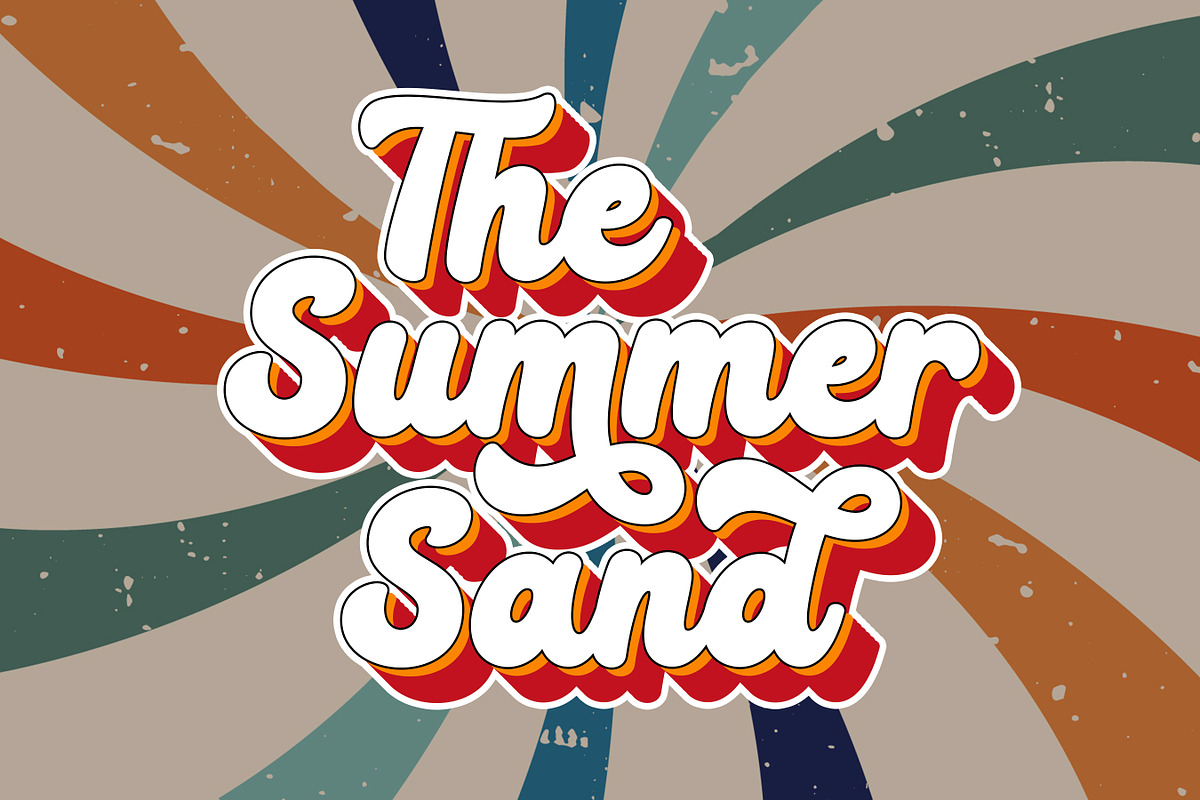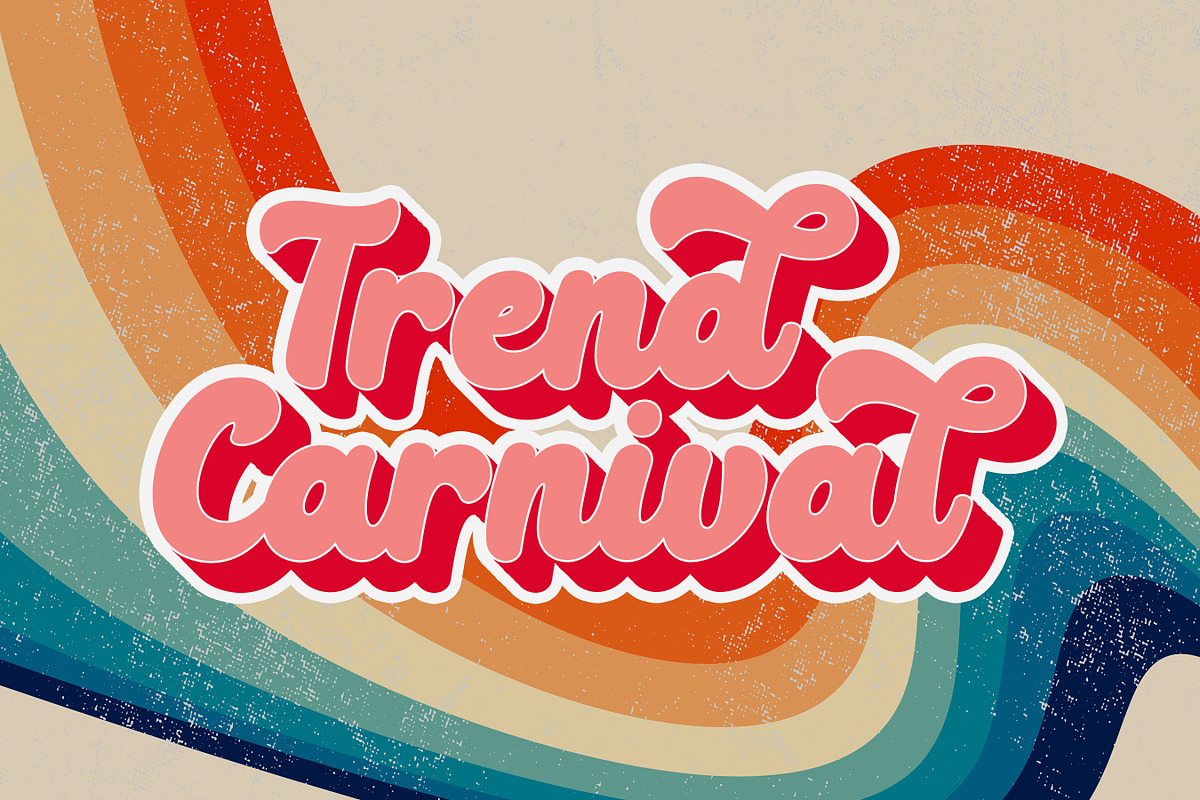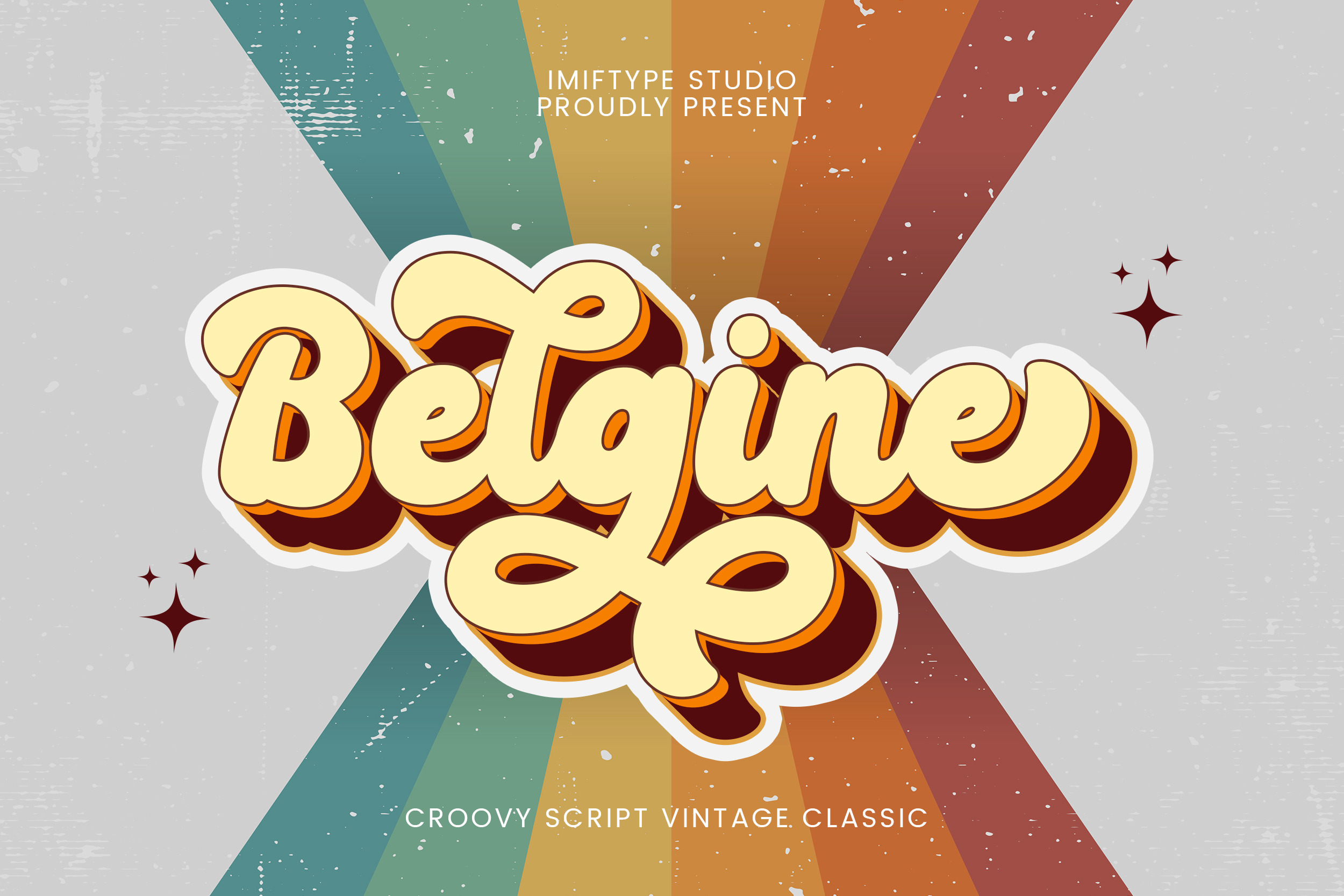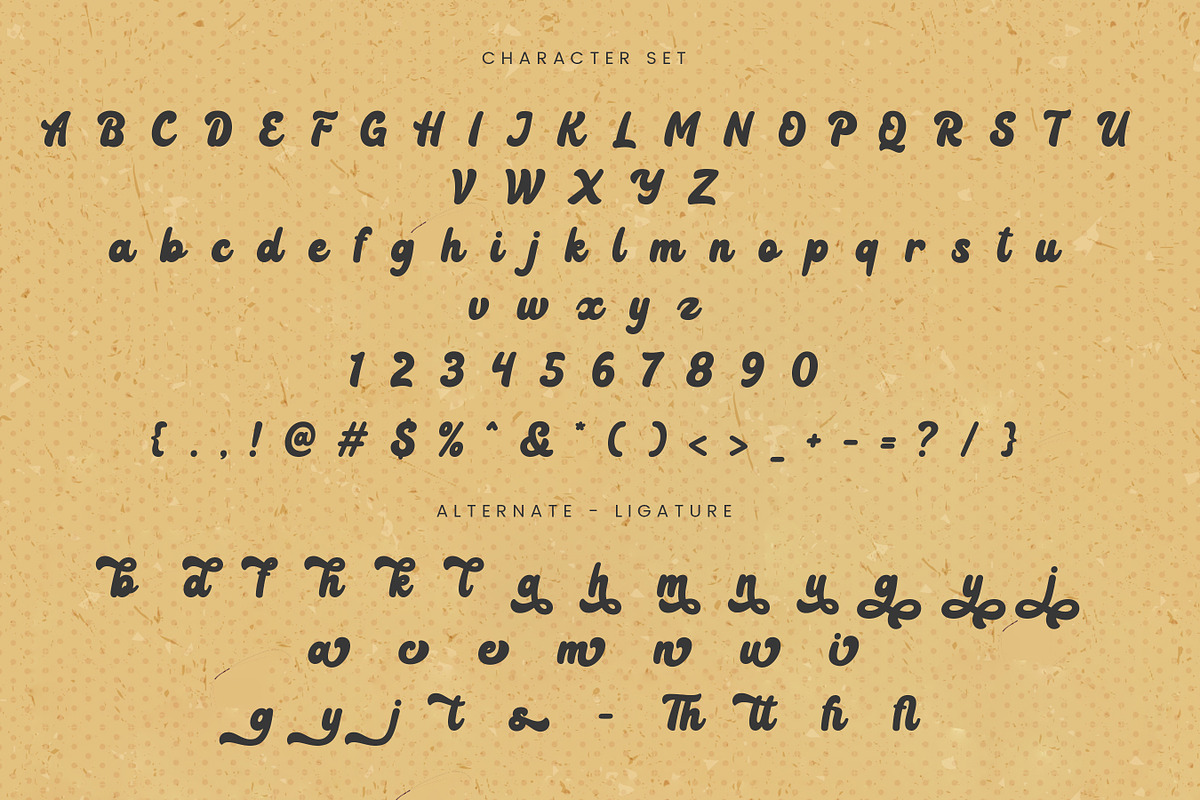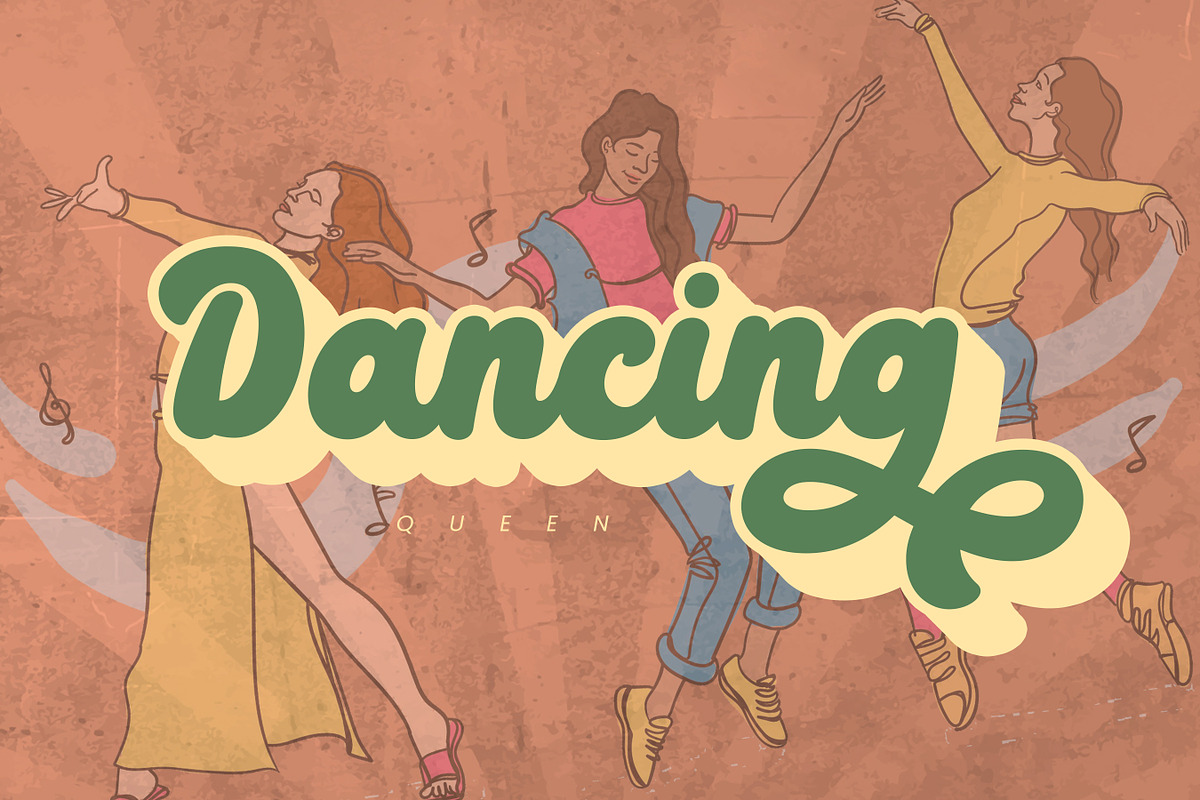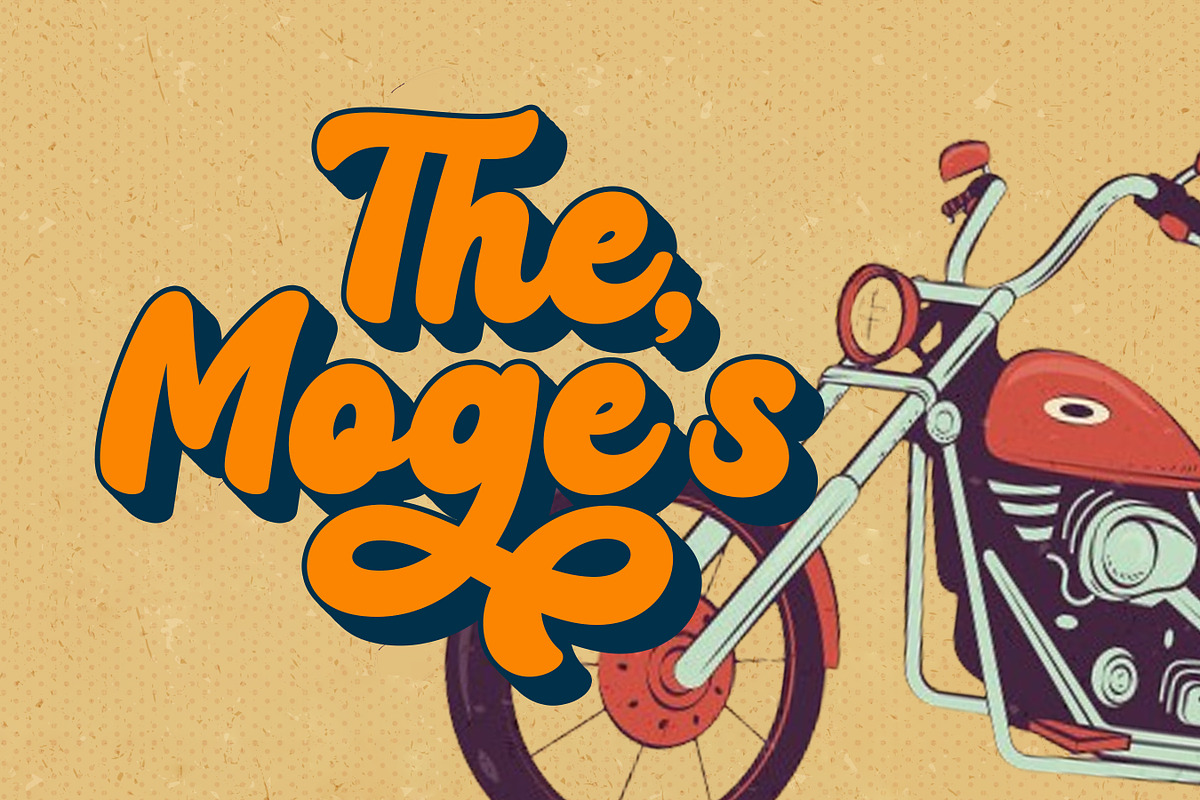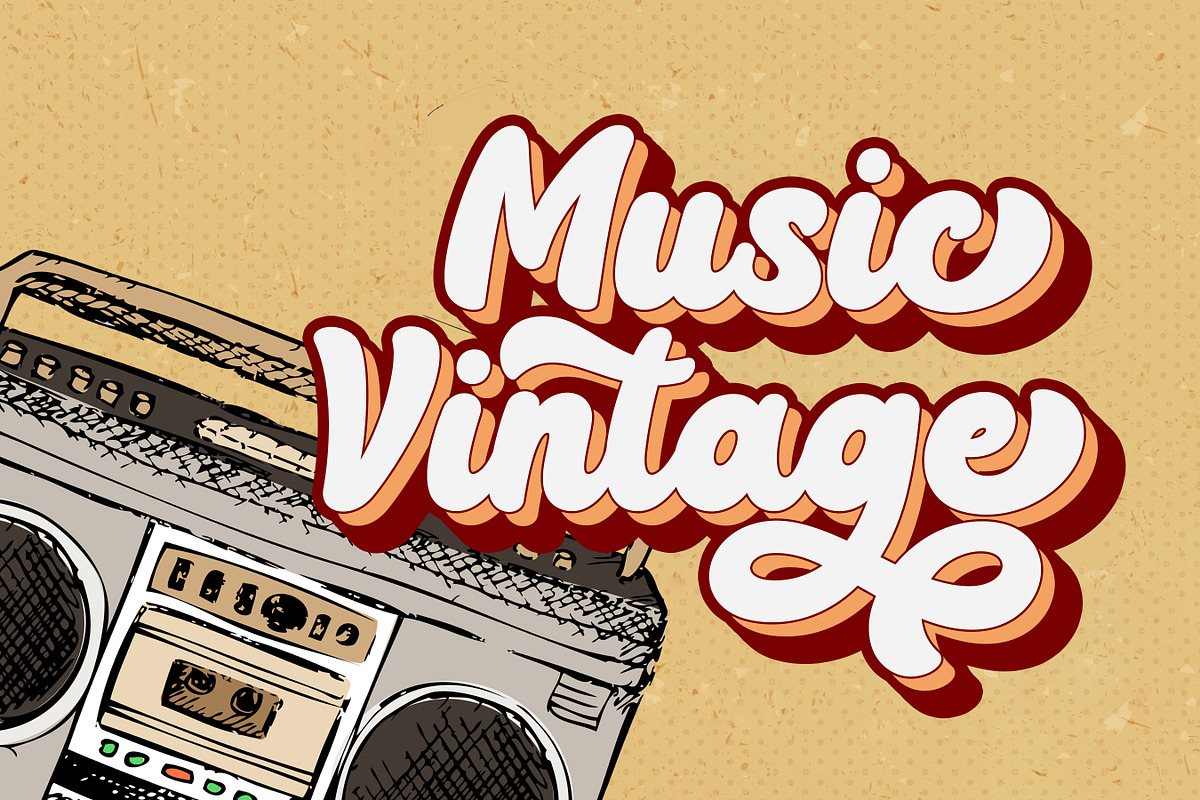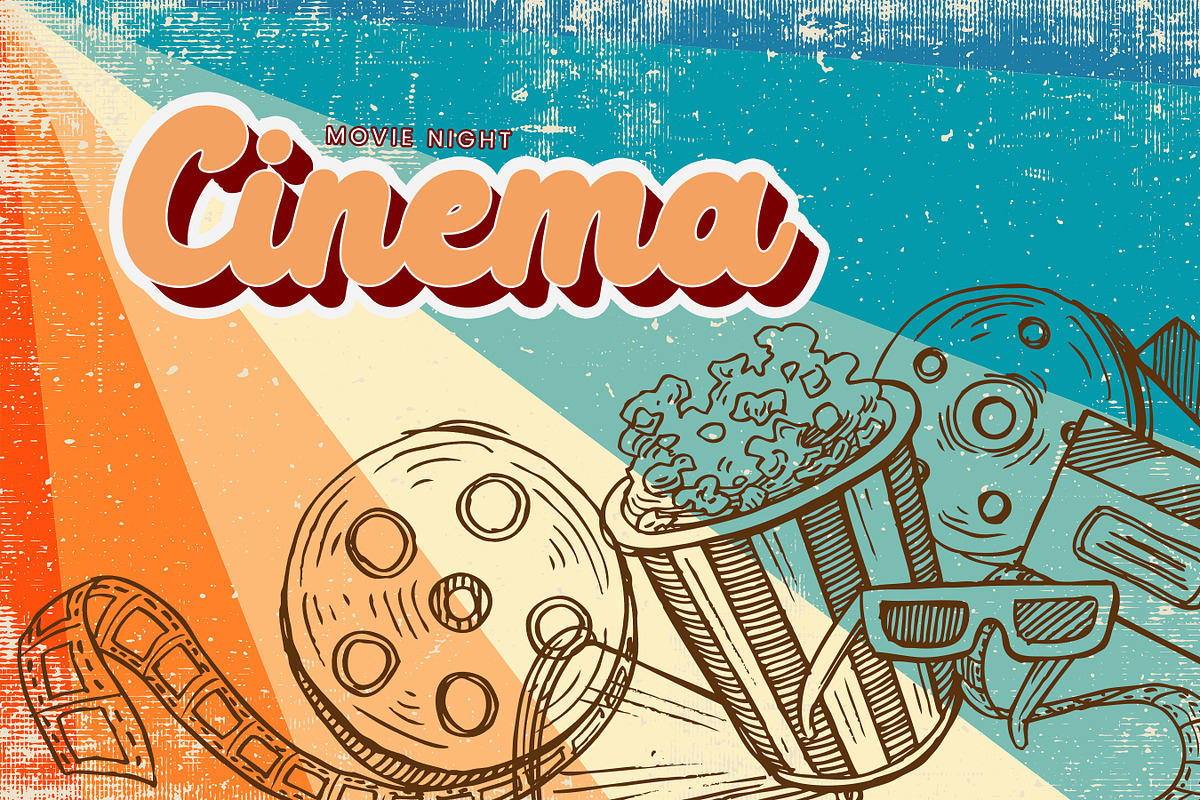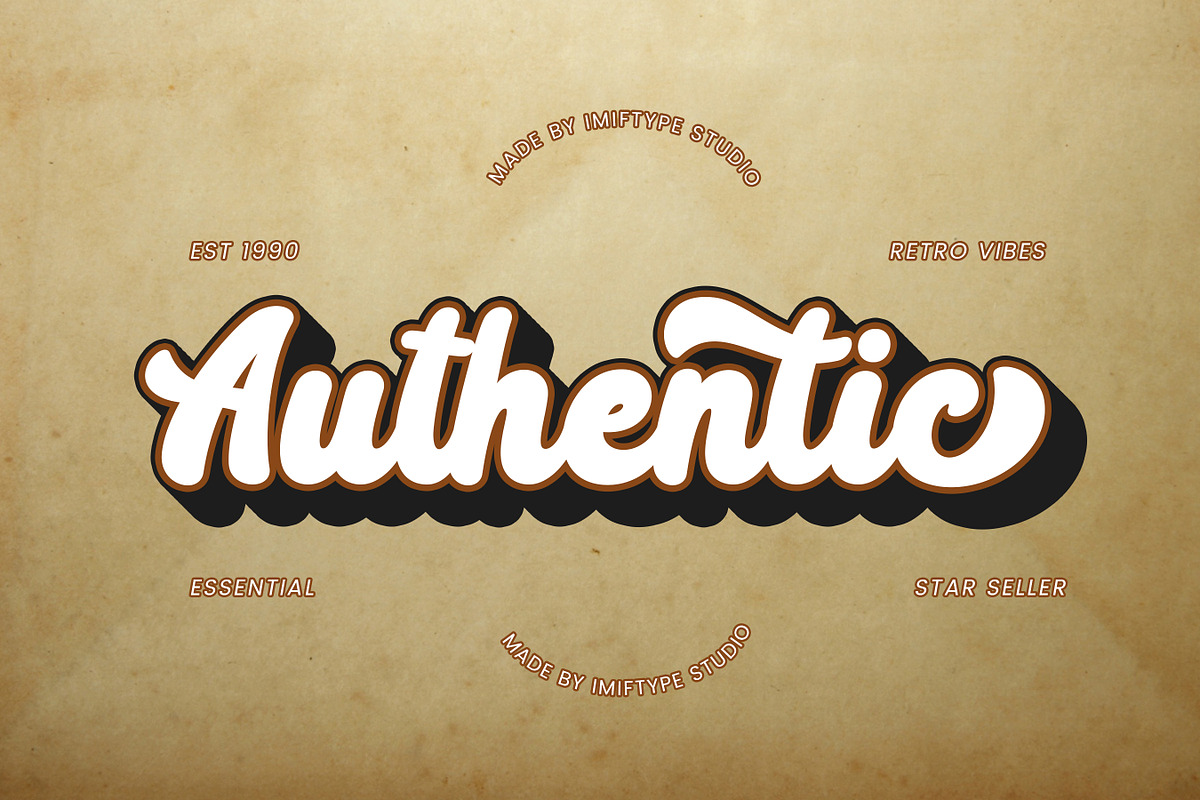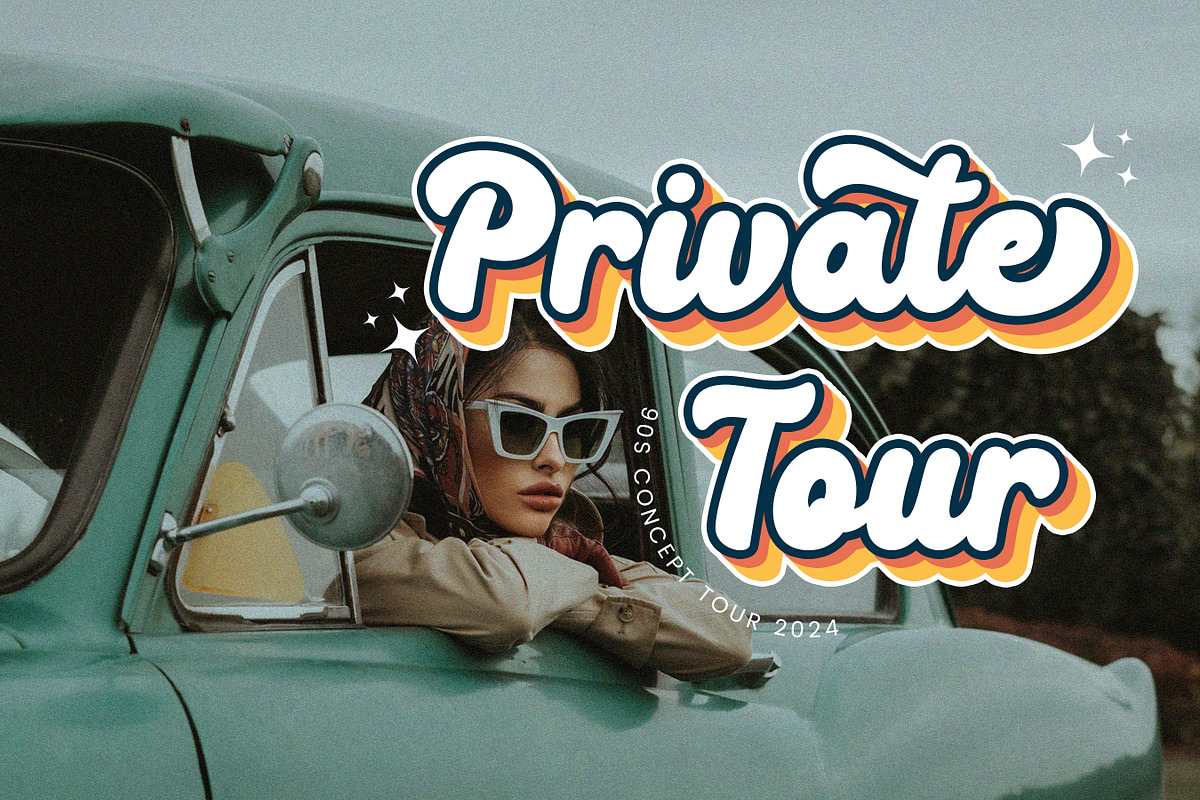
Belgine – Groovy Script Font
Belgine is a groovy script font inspired by vintage, classic, and retro typography styles. Featuring bold strokes, rounded shapes, and playful curves, this font brings a cheerful, expressive, and nostalgic vibe to your designs.
Belgine is perfect for logos, branding, posters, packaging, stickers, apparel designs, headlines, social media graphics, and retro-themed projects. Its groovy character makes it ideal for creative works that need a fun, bold, and eye-catching style with a classic touch.
Designed to stand out, Belgine works beautifully in both digital and print projects. Whether you are creating 70s-inspired visuals, colorful branding, or playful typography, this font delivers strong personality and visual impact.
With its unique retro feel and smooth script flow, Belgine is a great choice for designers looking to add charm, energy, and vintage flair to their typography.